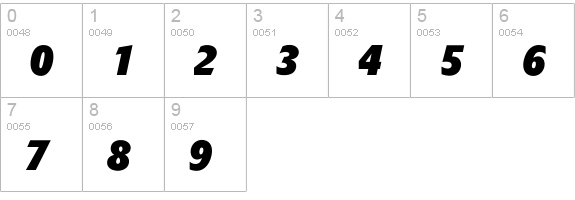
Introducing TFForever-ExtraboldItalic, a striking and captivating font that effortlessly combines boldness with an elegant touch of italics. This font is designed to make a lasting impression, whether it's used for headlines, titles, or any design project that demands attention. TFForever-ExtraboldItalic exudes confidence and sophistication, making it the perfect choice for those seeking to make a bold statement. With its unique fusion of thick strokes and slanted angles, this font adds a touch of dynamism and modernity to any composition. But what makes TFForever-ExtraboldItalic truly special is that it is not only visually stunning, but also freely available for download at FontsMarket.com. Yes, you read that right! You can now enjoy the power and beauty of this font without any cost, allowing you to elevate your designs without breaking the bank. Whether you're a professional designer, a student working on a project, or simply someone with a passion for typography, TFForever-ExtraboldItalic is a must-have addition to your font library. Its versatility and eye-catching aesthetics ensure that it will effortlessly enhance any design, be it for print or digital media. Don't miss out on the opportunity to download TFForever-ExtraboldItalic for free at FontsMarket.com. Take advantage of this offer and unlock the potential of this extraordinary font. Let your creativity flourish and leave a lasting impression with TFForever-ExtraboldItalic - the font that combines power, elegance, and accessibility all in one package.